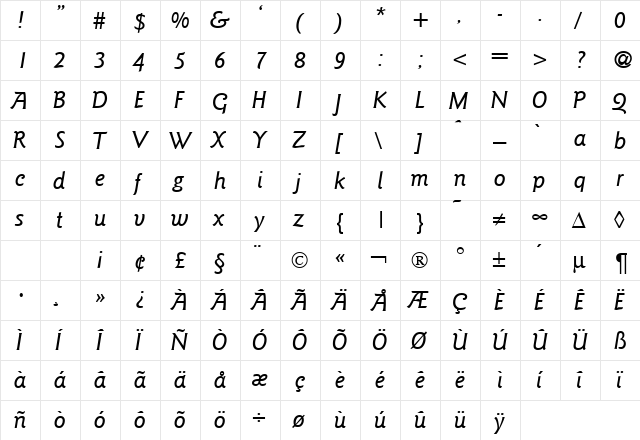
GoudySansTwoMedium RegularItalic Font Preview
GoudySansTwoMedium RegularItalic
Design Context for GoudySansTwoMedium Typeface
GoudySansTwoMedium is a composed and adaptable typeface that performs quietly and consistently across a wide range of design contexts. The slanted form adds forward momentum and visual energy.
Pro Tip: Use GoudySansTwoMedium for emphasis, pull quotes, and subheadings where its slanted energy can add rhythm to the layout.